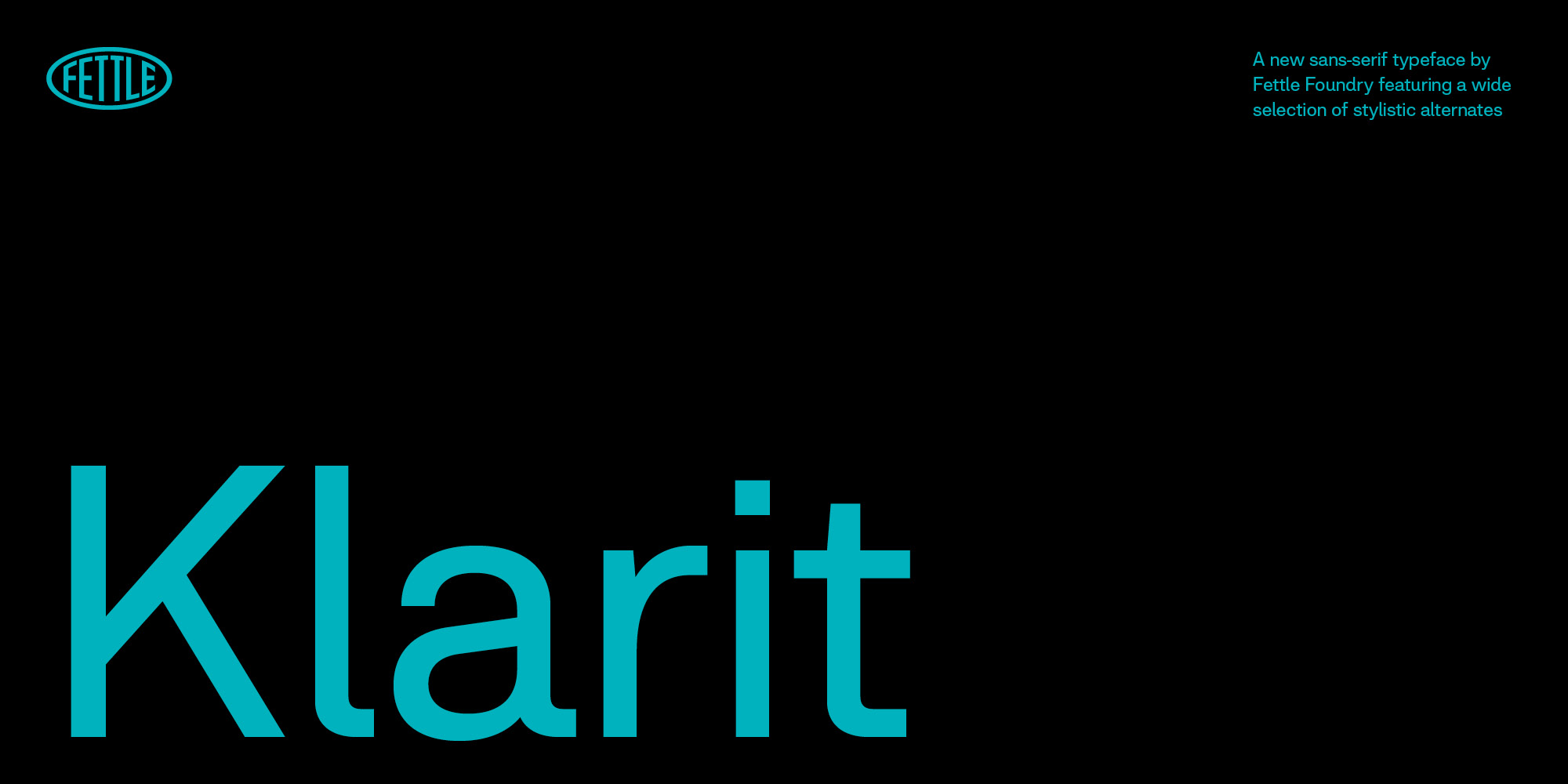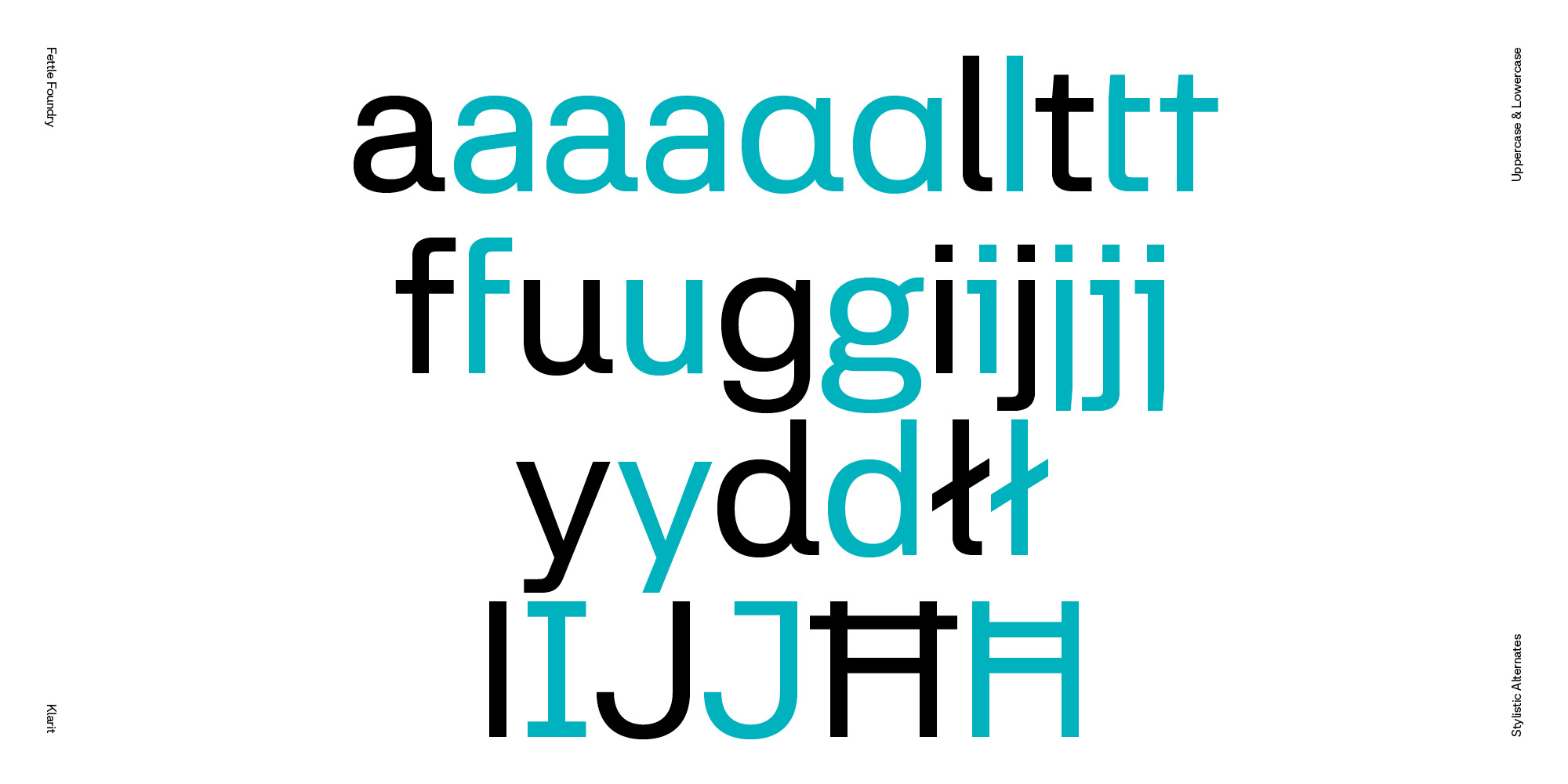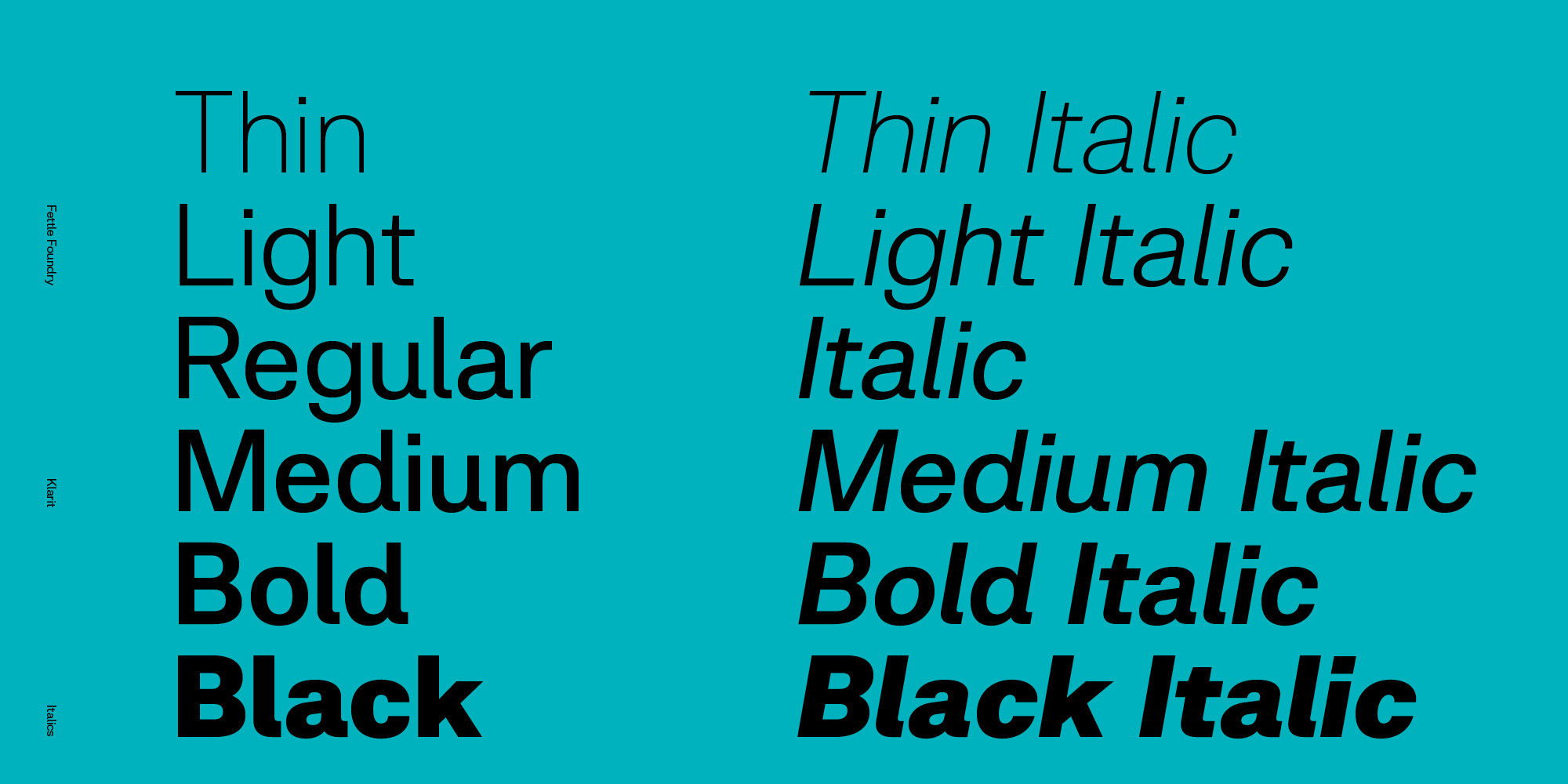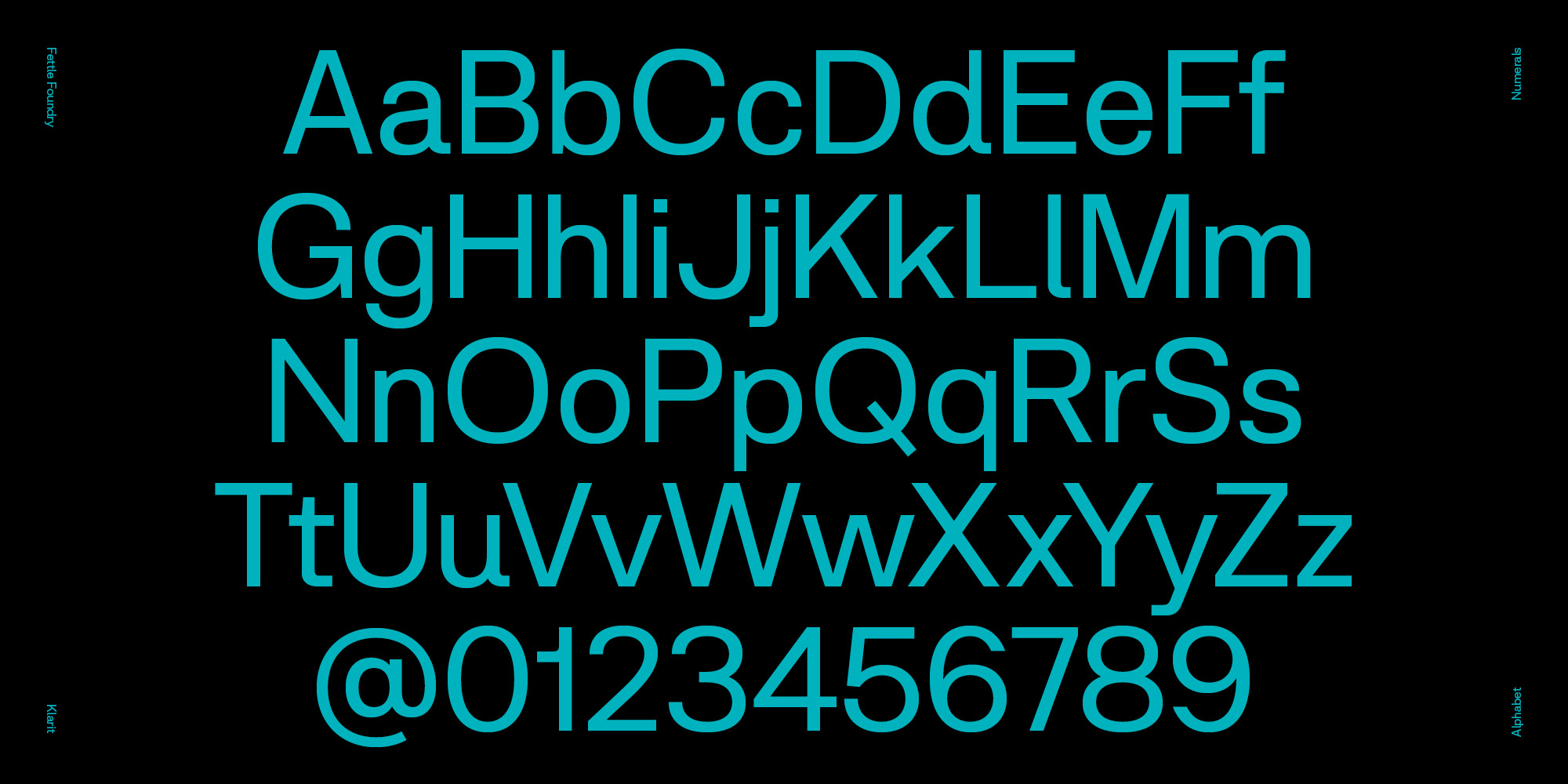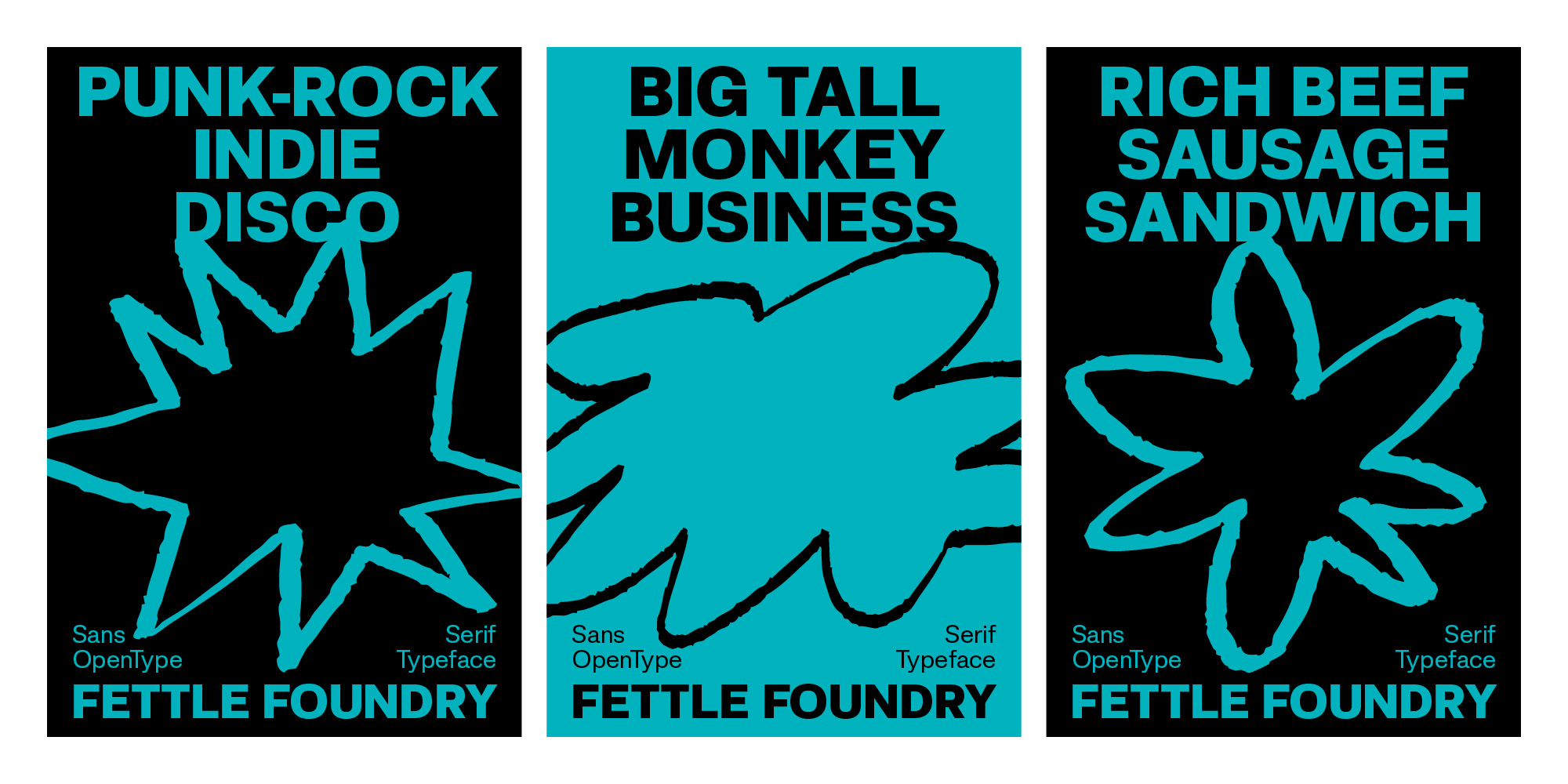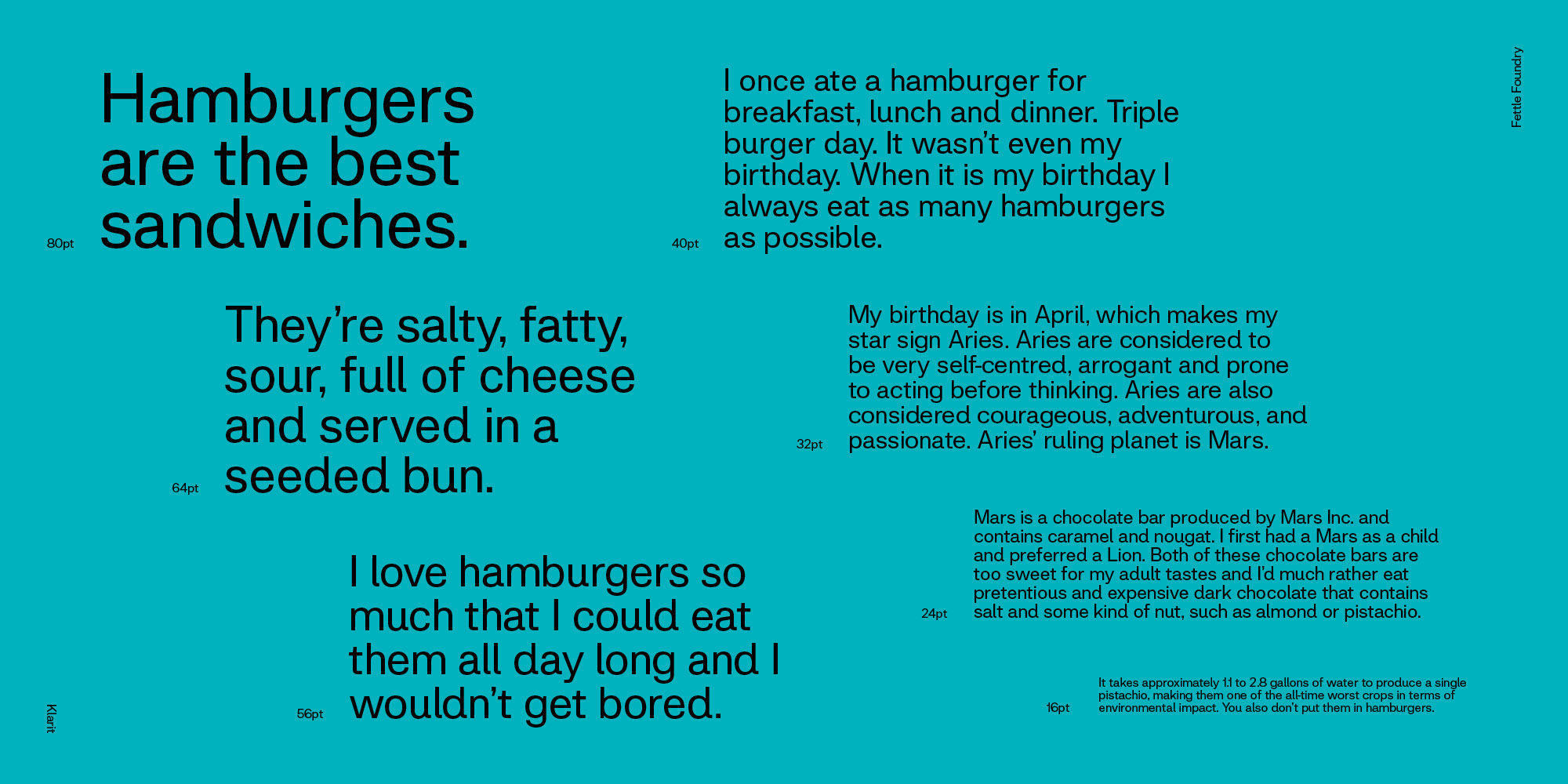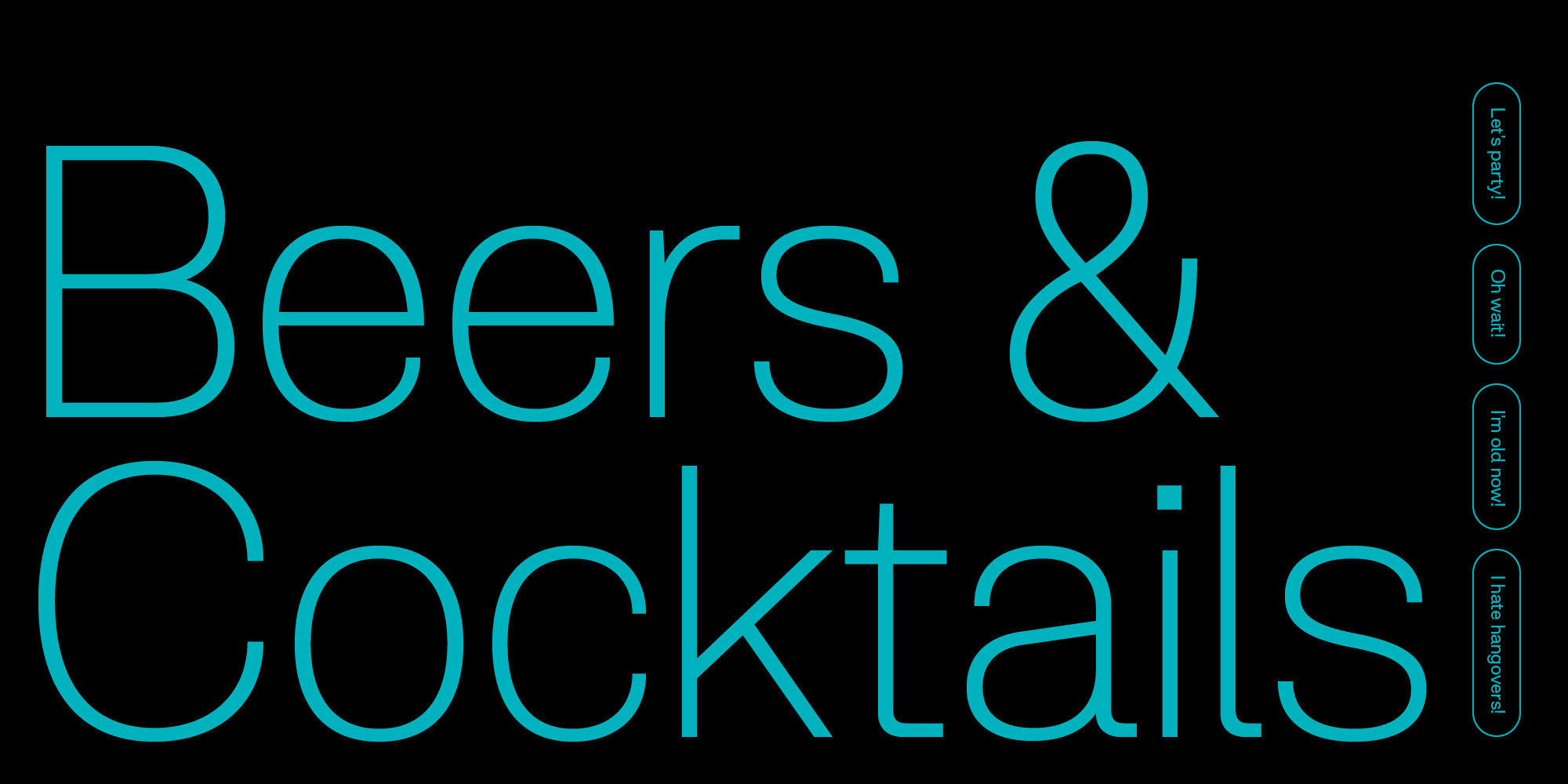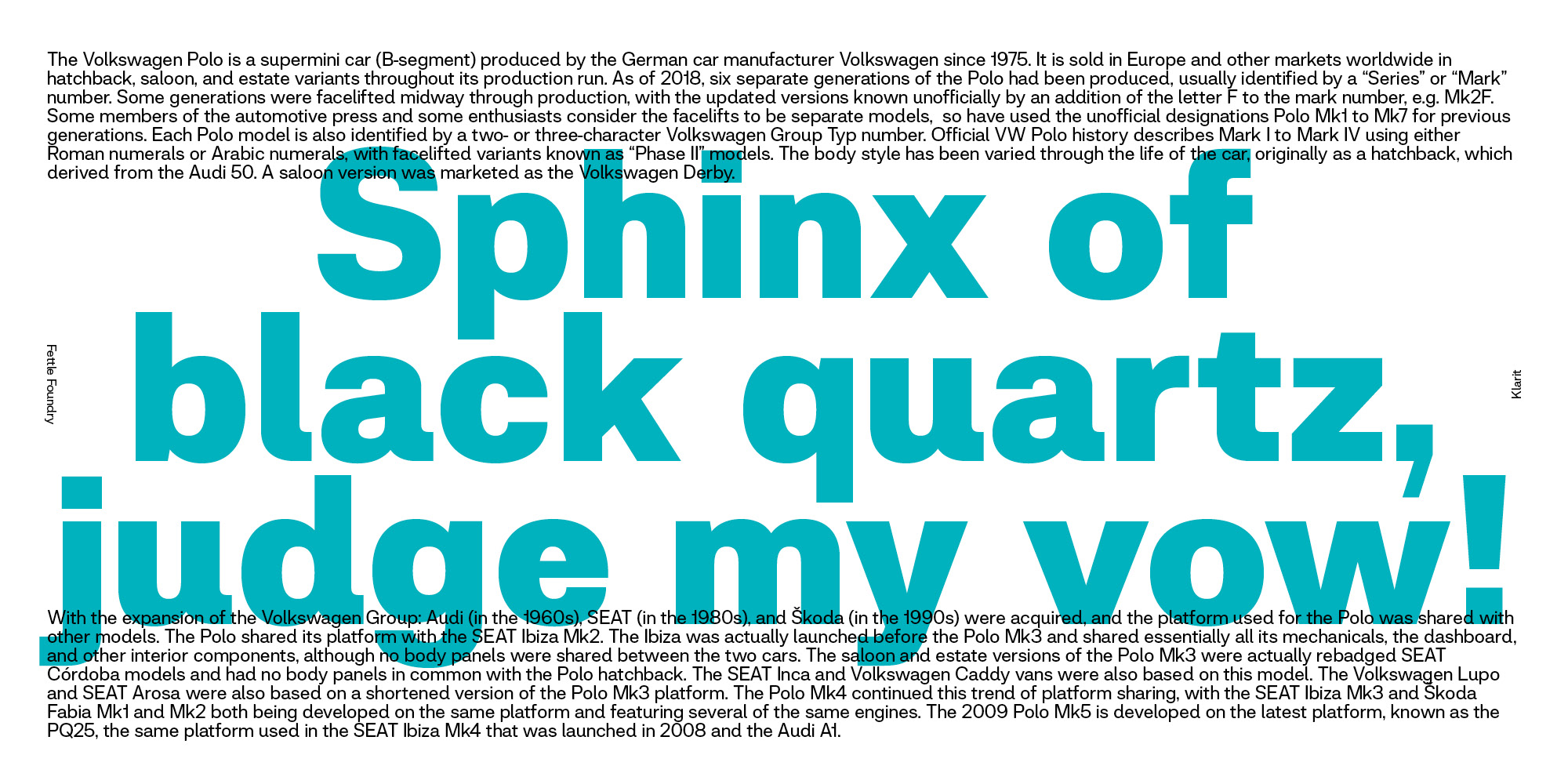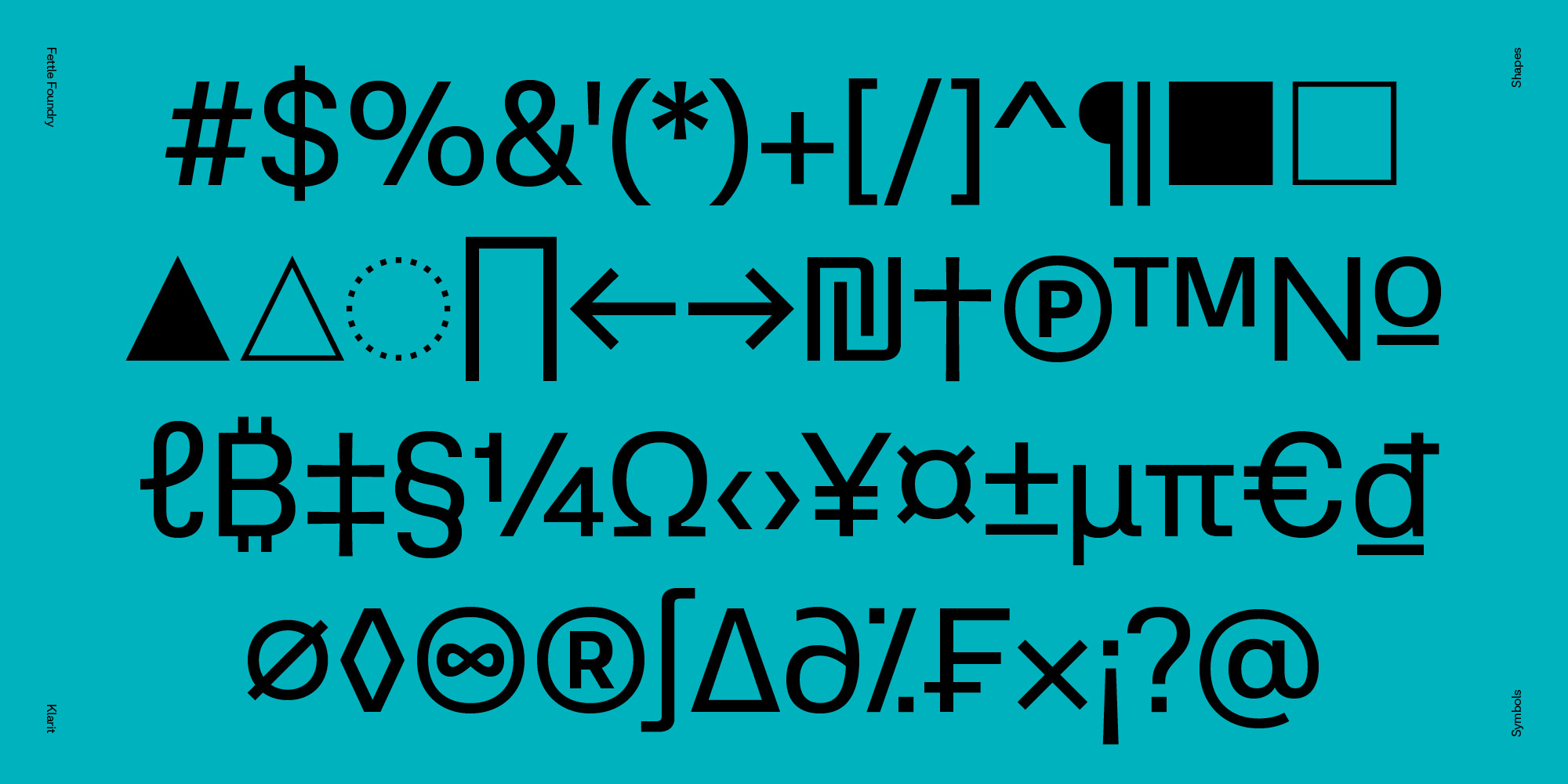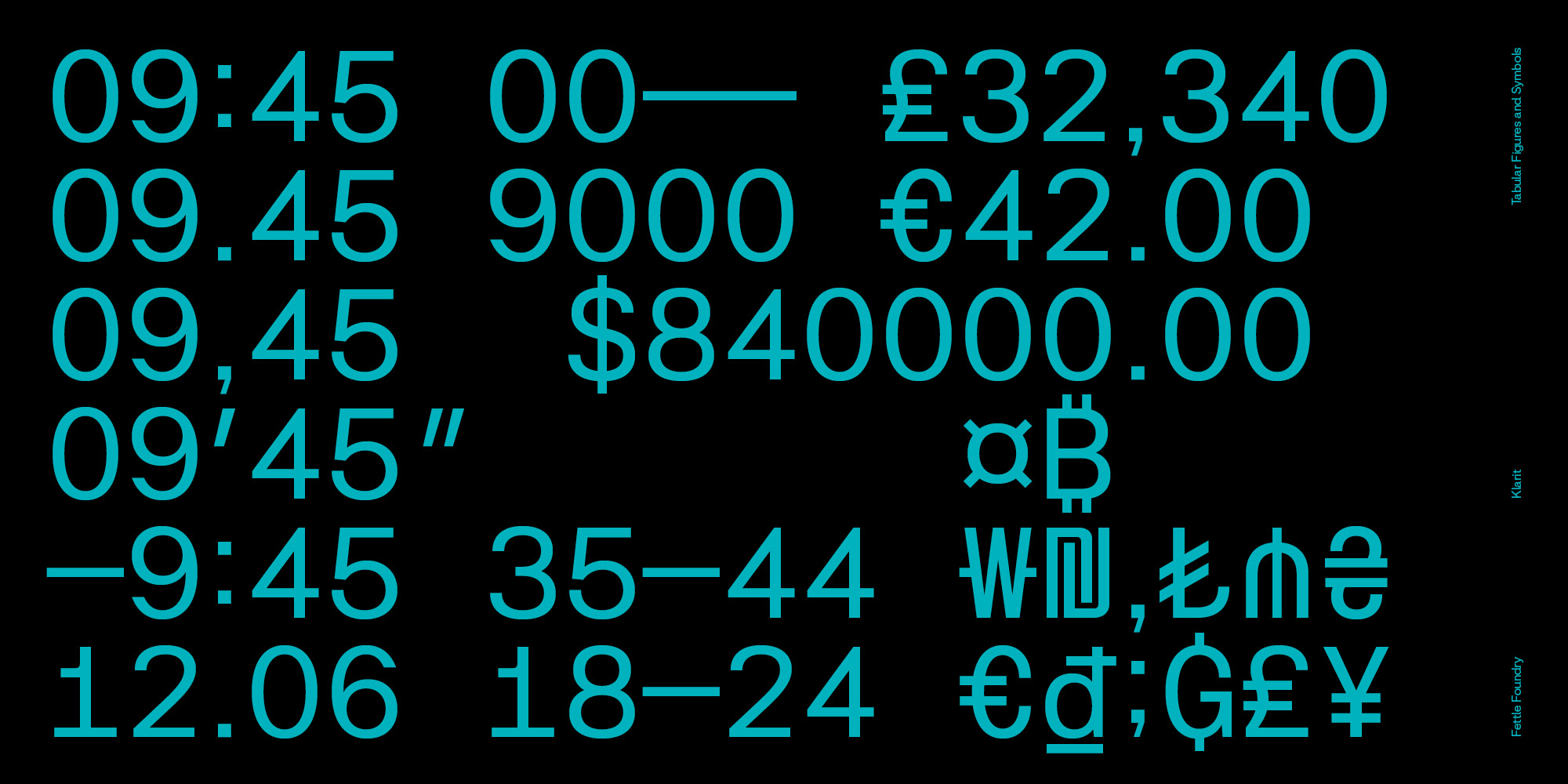
Klarit is a legible sans-serif designed to maximise legibility accessibility across print and digital applications. Featuring a large selection of alternates across both uppercase and lowercase character sets, Klarit provides users with powerful customisation options to suit their needs. Based on an extended Latin-S character set, Klaritt supports over 380 Latin-based languages.